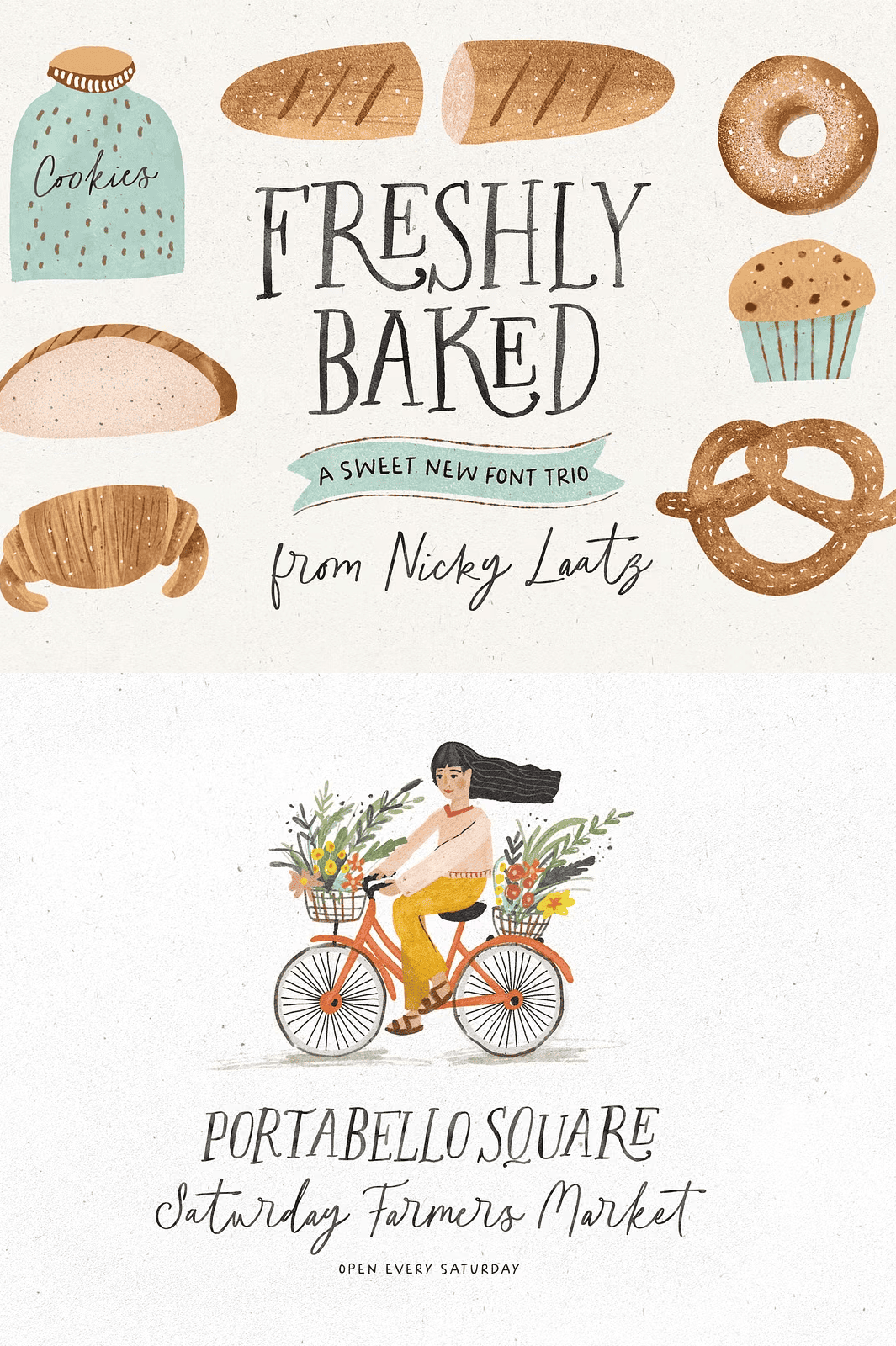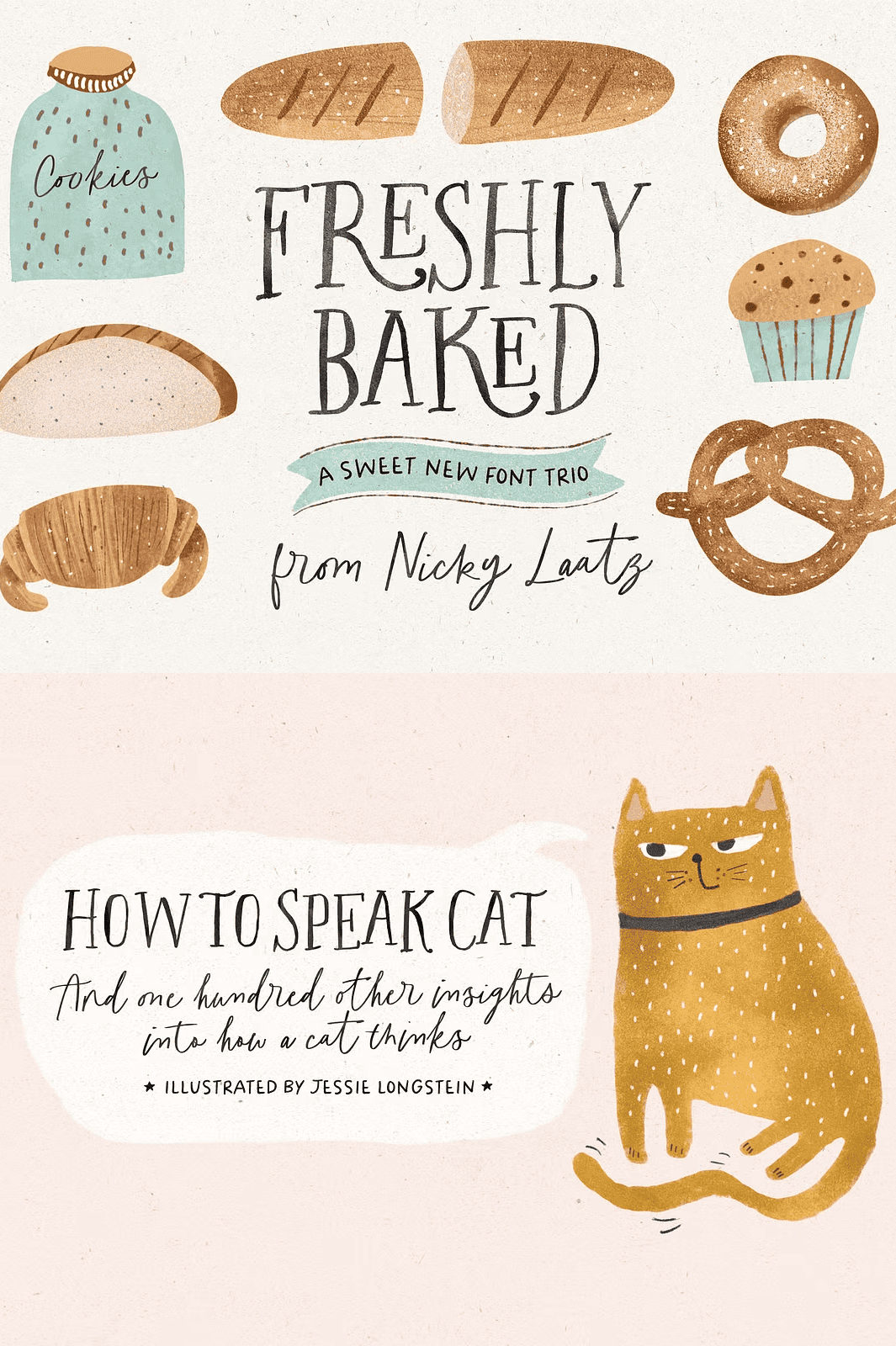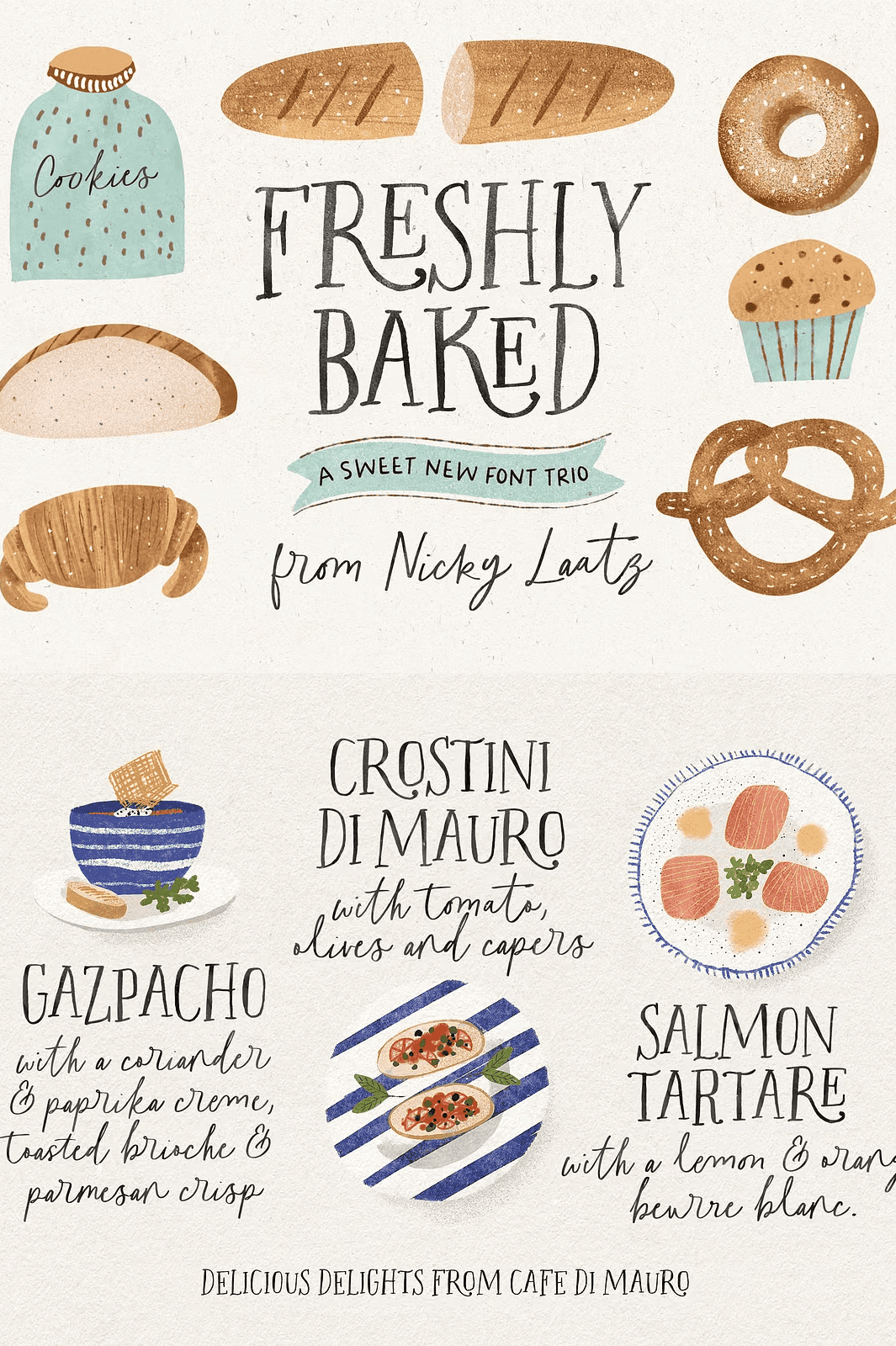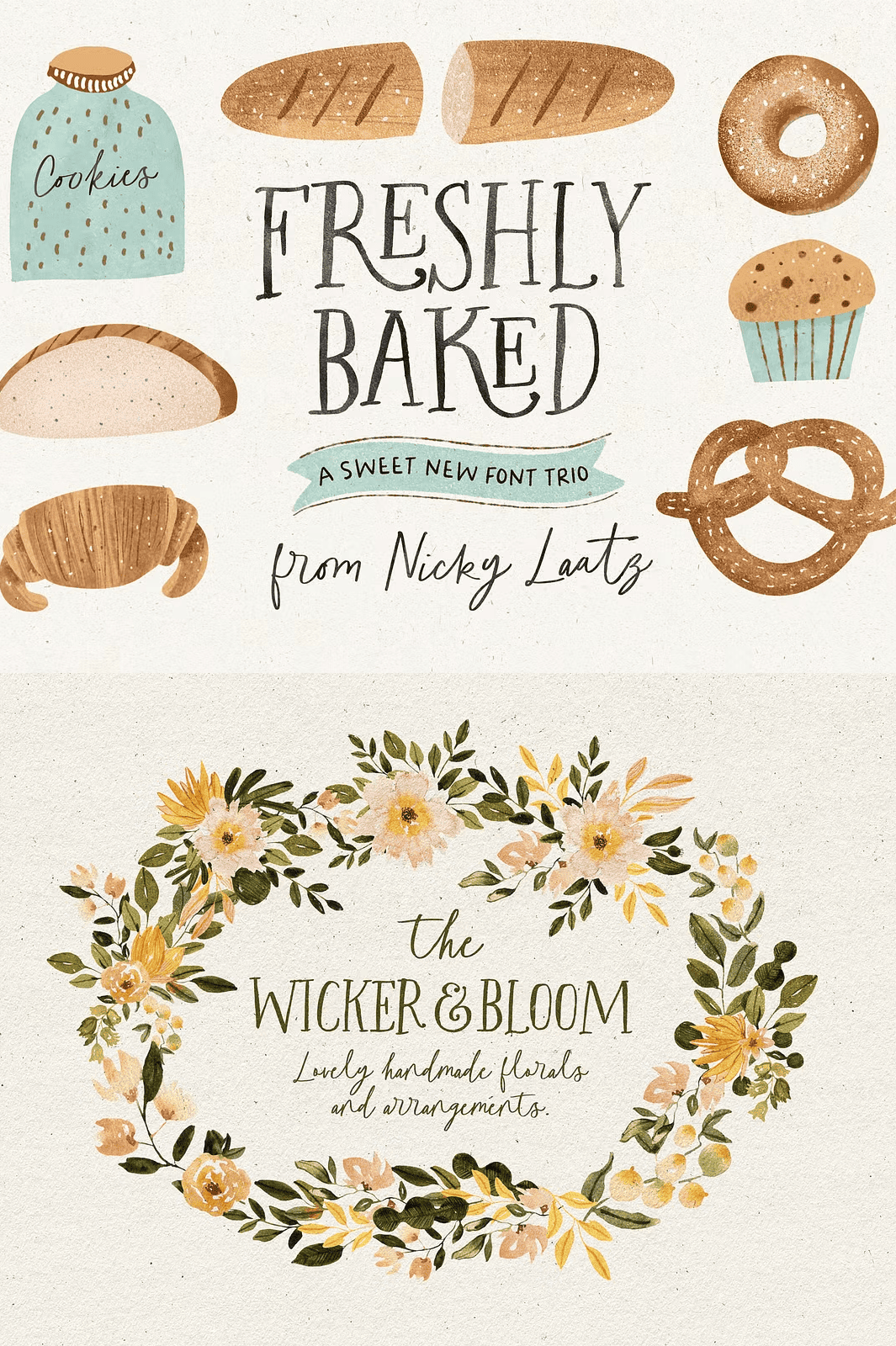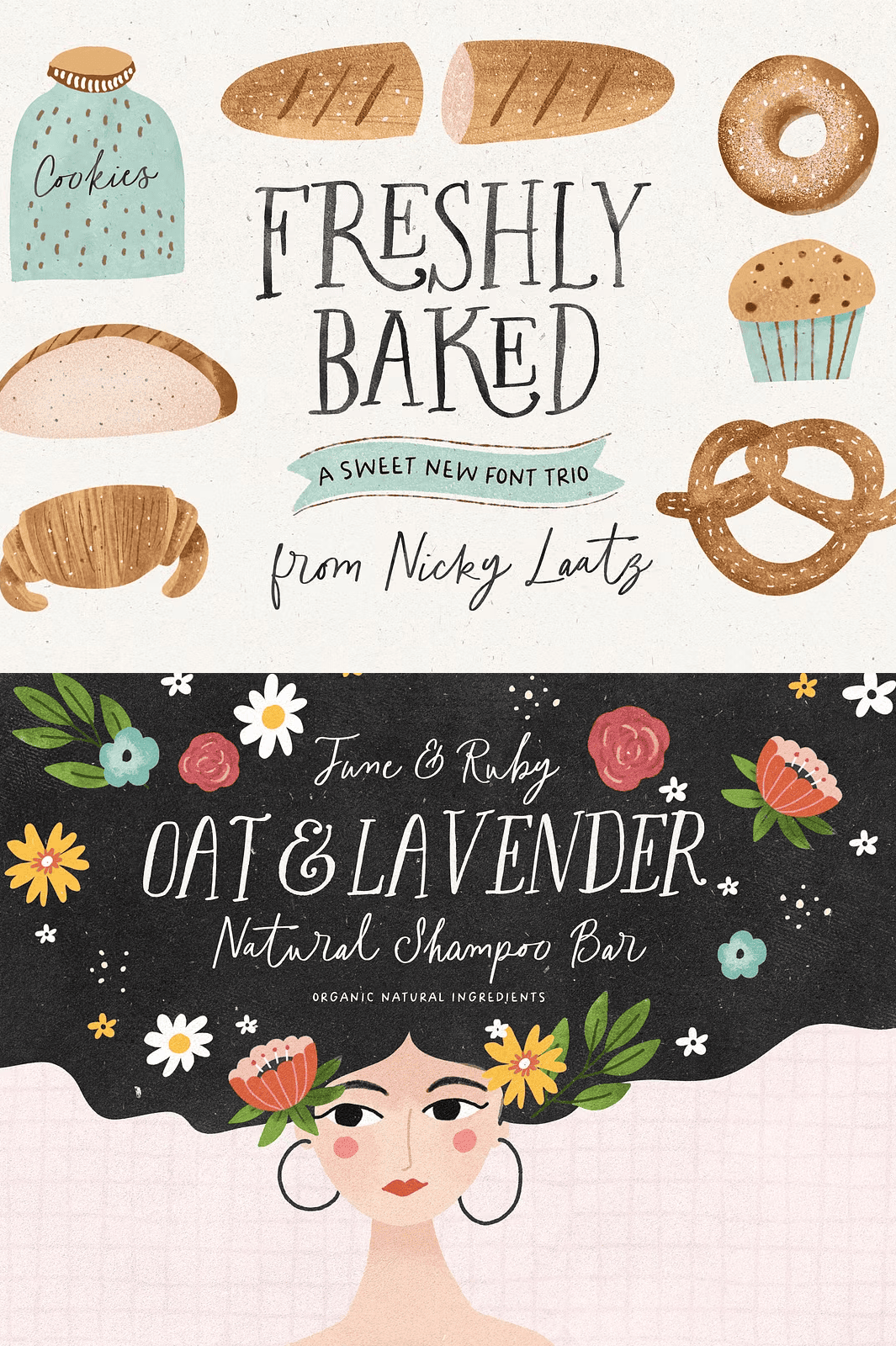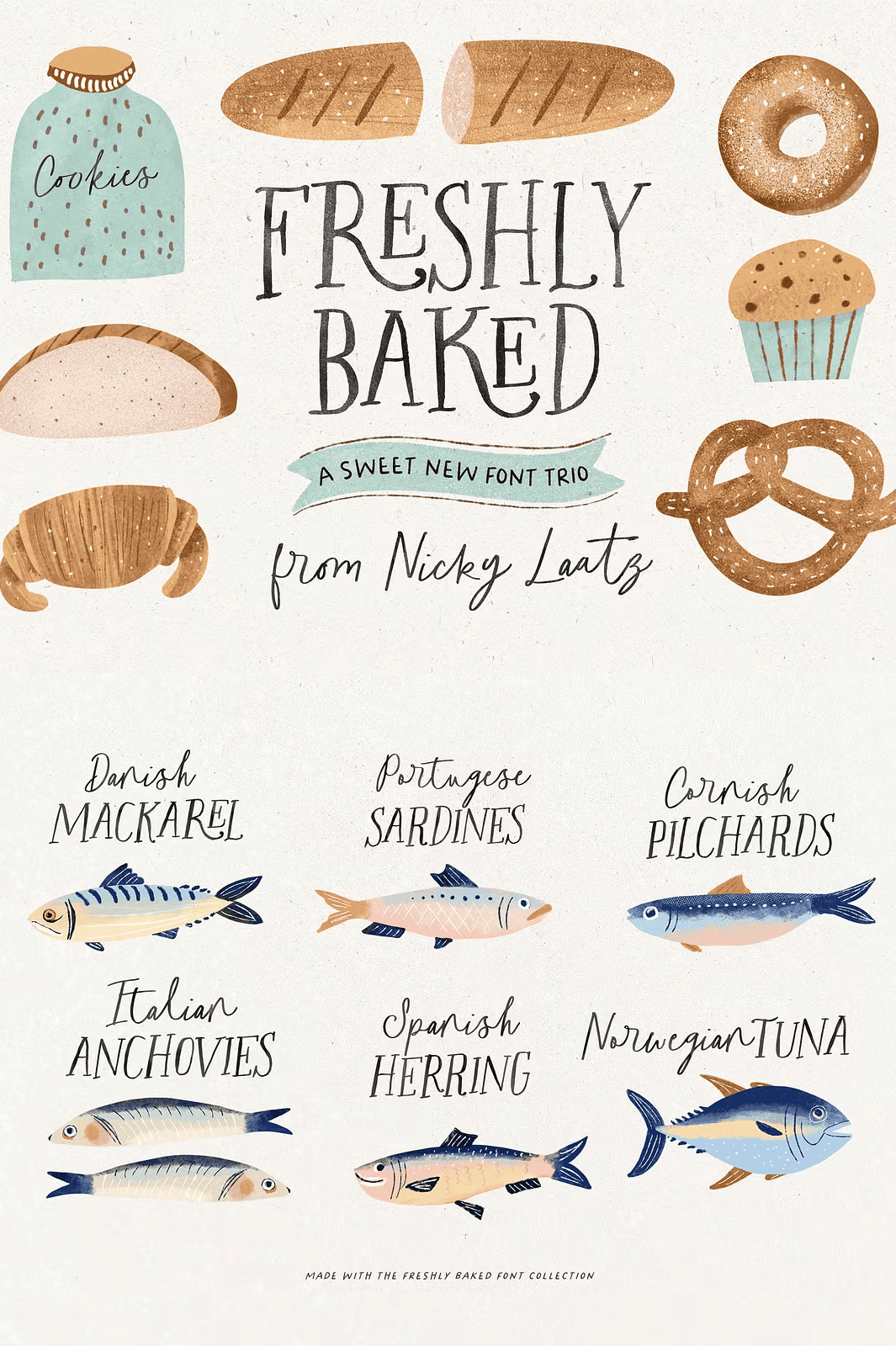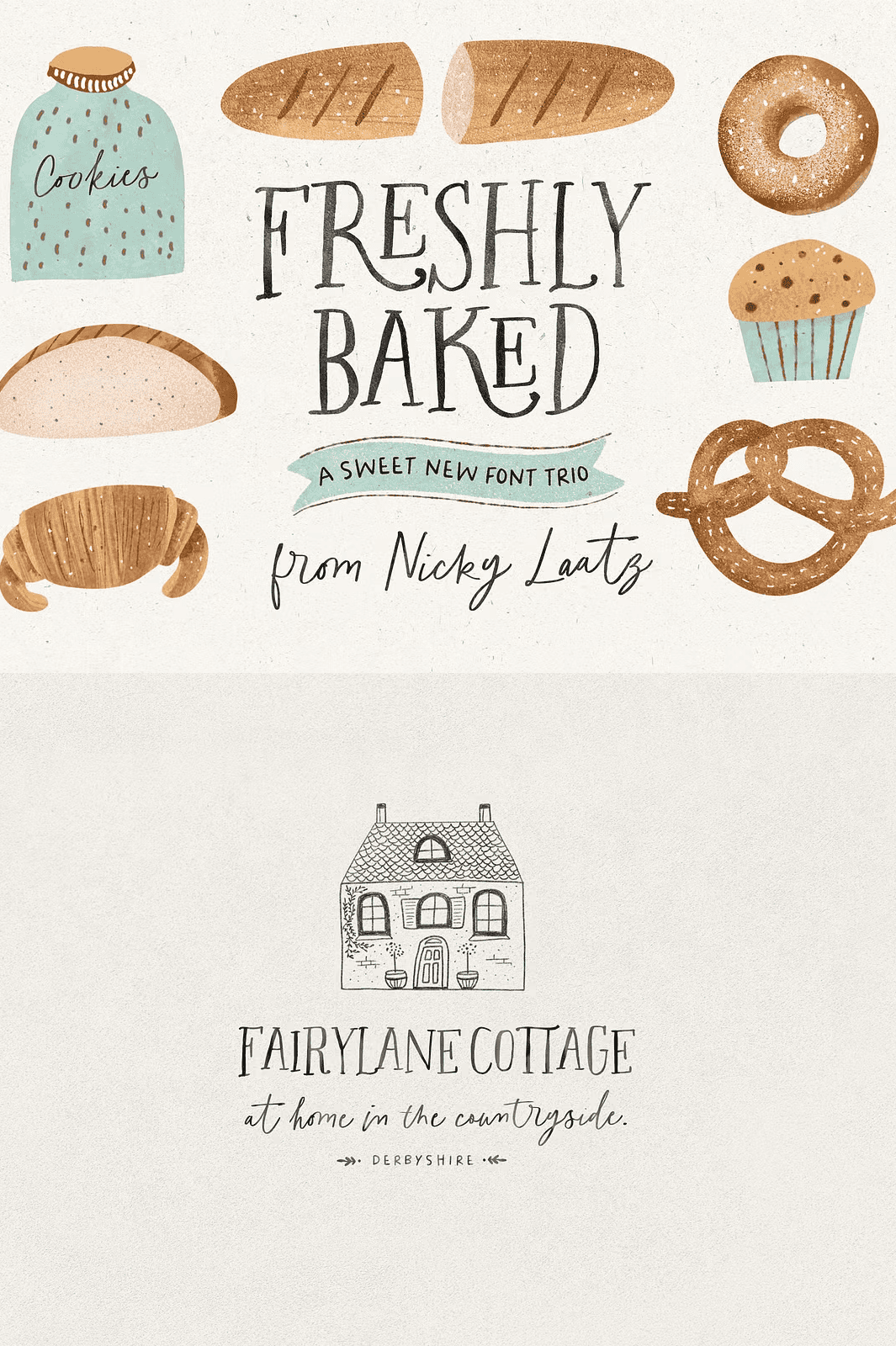
The Freshly Baked Font Trio & Dings
Meet the Freshly Baked Font Trio: Handwritten Fonts Full of Personality and Playful Energy
Say hello to a font collection that feels like a warm, freshly baked treat — **Freshly Baked Font Trio** is a delightfully crafted ensemble of six handwritten typefaces, each bursting with unique charm, artistic flair, and spontaneous character. Designed for creators who crave individuality, this trio includes two serif, two sans-serif, a flowing script, and a bonus dingbat ornament font — all unified by a cohesive, handcrafted aesthetic that brings warmth and whimsy to every project.
This is more than a font bundle — it’s a creative catalyst. Whether you’re designing whimsical packaging, crafting storybook illustrations, or building joyful branding for a lifestyle brand, Freshly Baked brings authenticity and emotional depth to your work. The slight irregularities in stroke thickness and natural letter spacing mimic the real hand of a calligrapher, ensuring your designs never feel robotic or impersonal.
Unlock the Magic of Opentype Ligatures for Effortless Elegance
One of the standout features of the **Freshly Baked Serif** and **Freshly Baked Script** is their rich collection of **Opentype ligatures** — beautifully crafted combinations of letters that join together in elegant, customized ways. The “Ro” in the Serif font, for example, features an R that gently curves under the O, creating a seamless, artistic flow.
– ✅ **Freshly Baked Serif** – Elegant, warm, and slightly rustic; ideal for titles, logos, and printed materials
– ✅ **Freshly Baked Serif Slanted** – A dynamic, angled version for added movement and visual interest
– ✅ **Freshly Baked Sans** – Clean yet playful; perfect for modern, minimal designs with a personal twist
– ✅ **Freshly Baked Sans Slanted** – A stylish counterpart with slanted flair for banners and headlines
– ✅ **Freshly Baked Script** – A flowing, expressive script that mimics real handwriting with grace and rhythm
– ✅ **Freshly Baked Dings** – A decorative dingbat font with 70+ quirky ornament icons for borders, accents, and embellishments
Perfect for Projects That Demand Fun, Character, and Heart
This font trio shines brightest in projects where personality is key:
– Design **greeting cards, party invitations, and baby showers** with a personal, heartfelt touch
– Create **children’s books, illustrated storyboards, or educational materials** that engage young readers
– Develop **branding for cafes, boutiques, craft shops, or lifestyle labels** that want to feel authentic and approachable
– Craft **packaging, labels, and product boxes** that stand out on crowded shelves with charm
– Build **social media graphics, Instagram templates, and quote posts** that feel hand-created and inviting
– Use in **digital illustrations, posters, event banners, and online marketing campaigns** to capture attention and emotion
Whether you’re a freelance artist, small business owner, or creative hobbyist, this collection is your go-to tool for designs that feel alive and meaningful.
Start Creating with Freshly Baked — Where Every Letter Feels Like a Smile
Let the Freshly Baked Font Trio transform your ideas into expressive, joyful visuals. This isn’t just about typography — it’s about emotion, warmth, and creative freedom. With this bundle, you’re not just typing text; you’re telling stories, building brands, and spreading delight — one handwritten stroke at a time.